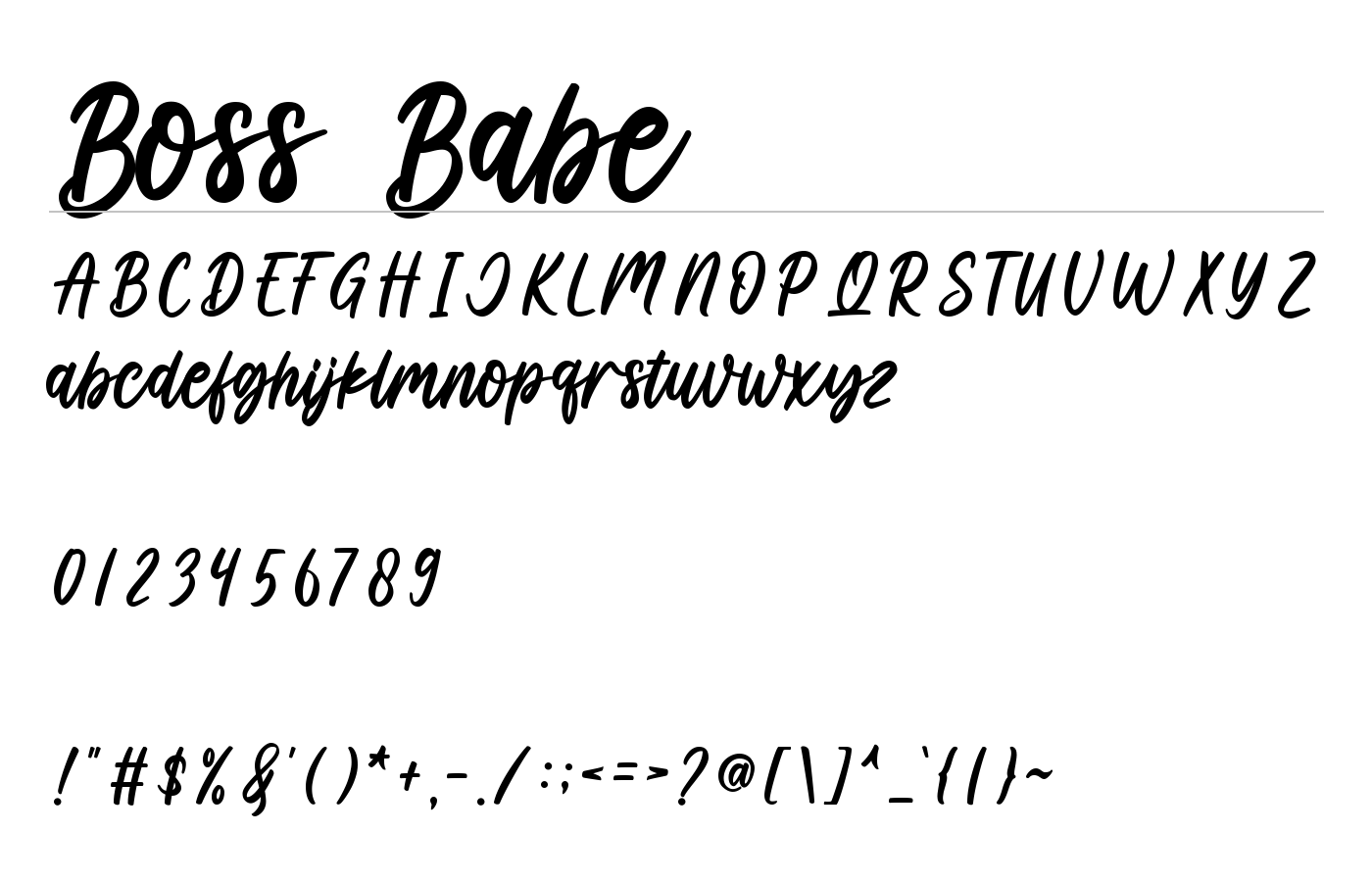
Boss Babe Font is a lively and stylish script typeface featuring smooth, flowing strokes with moderate contrast and subtle hand-drawn charm. Its casual yet confident feel makes it perfect for fashion branding, social media graphics, and feminine lifestyle projects that want to convey both elegance and approachability. This font works well in headlines and logos where a bold, trendy, and personal touch is desired.
Boss Babe Font
About Boss Babe Font